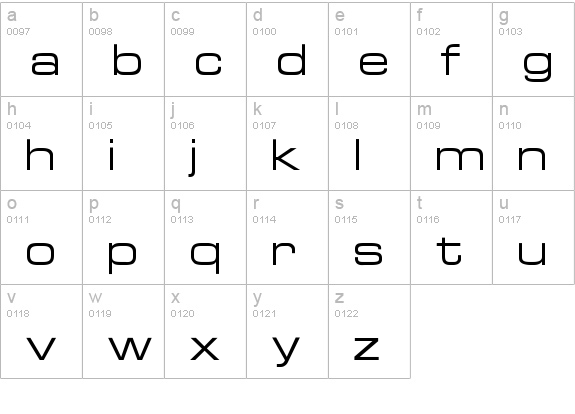
EuroTechnicExt Font Details
EuroTechnicExt is a modern and sleek sans-serif font designed for a wide range of design projects. With its clean lines and sharp edges, this typeface exudes a sense of sophistication and professionalism. The extended character set offers versatility for various design applications, making it suitable for both print and digital projects. What sets EuroTechnicExt apart is not only its stylish appearance but also the fact that it is available for free download at FontsMarket.com. This means you can easily access and use this high-quality font in your projects without any cost. Whether you're designing websites, branding materials, or print publications, EuroTechnicExt is a versatile and reliable choice that won't break the bank. Download this font today and elevate your designs with its modern aesthetic and timeless appeal.